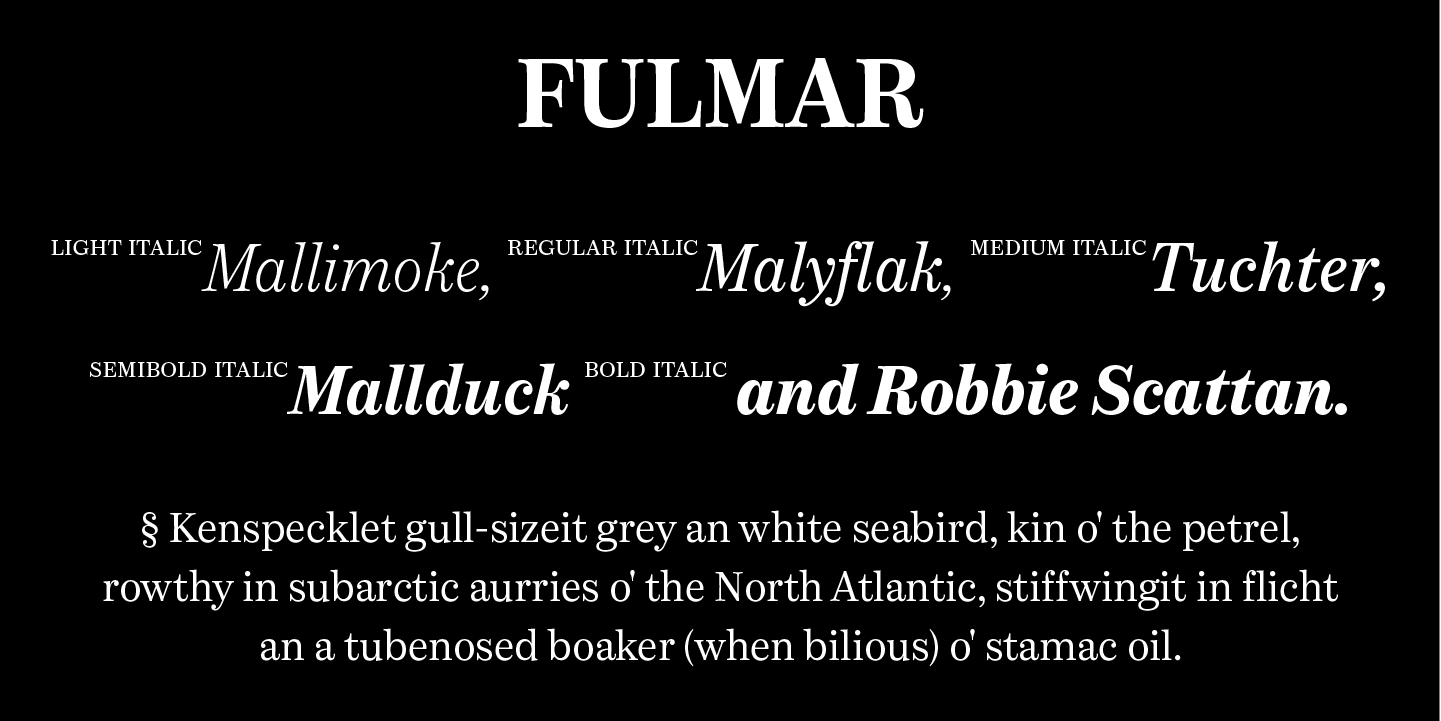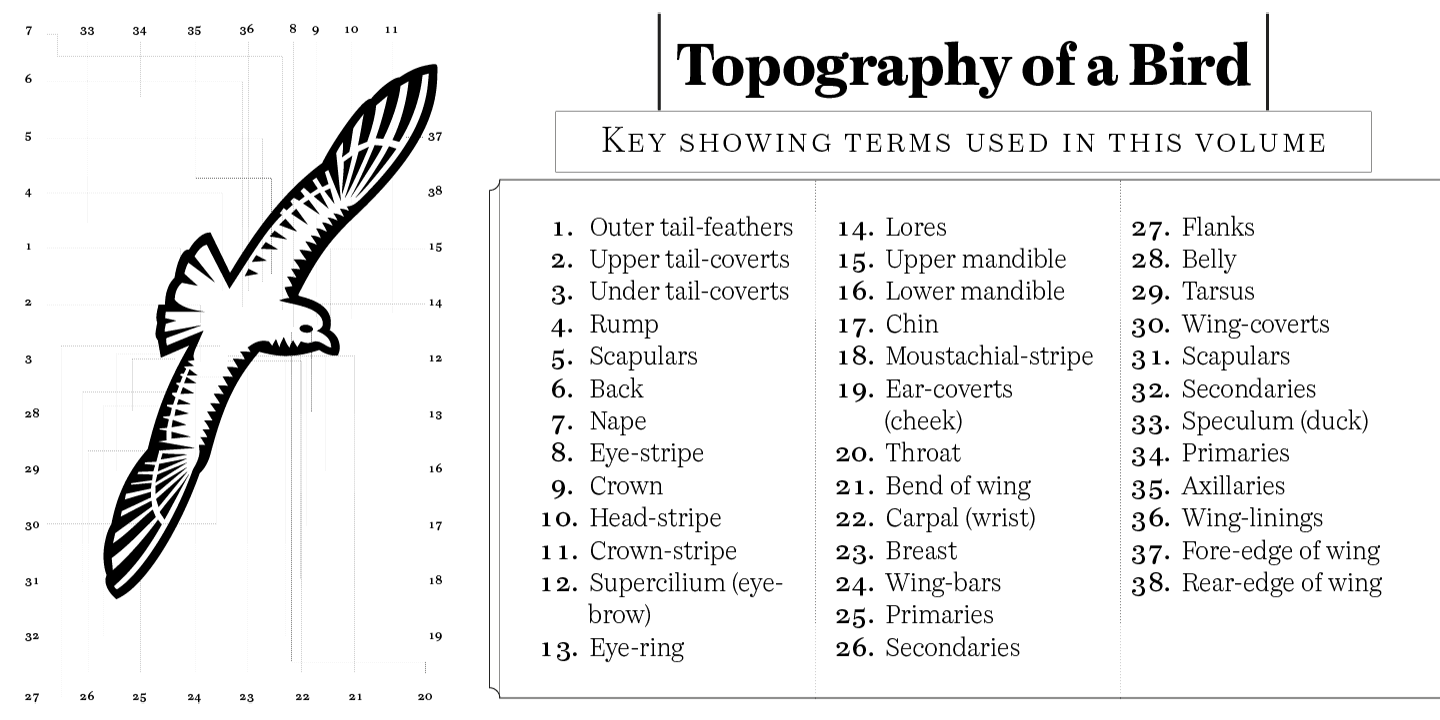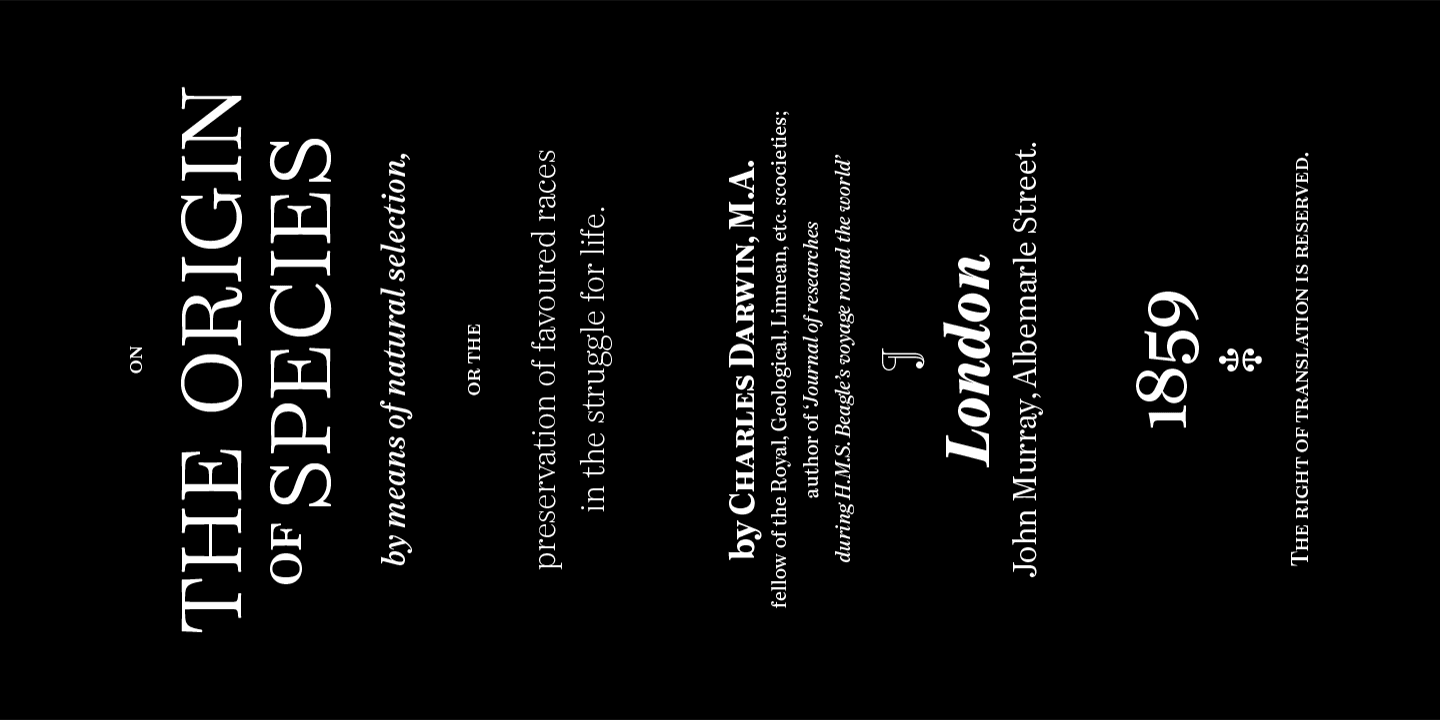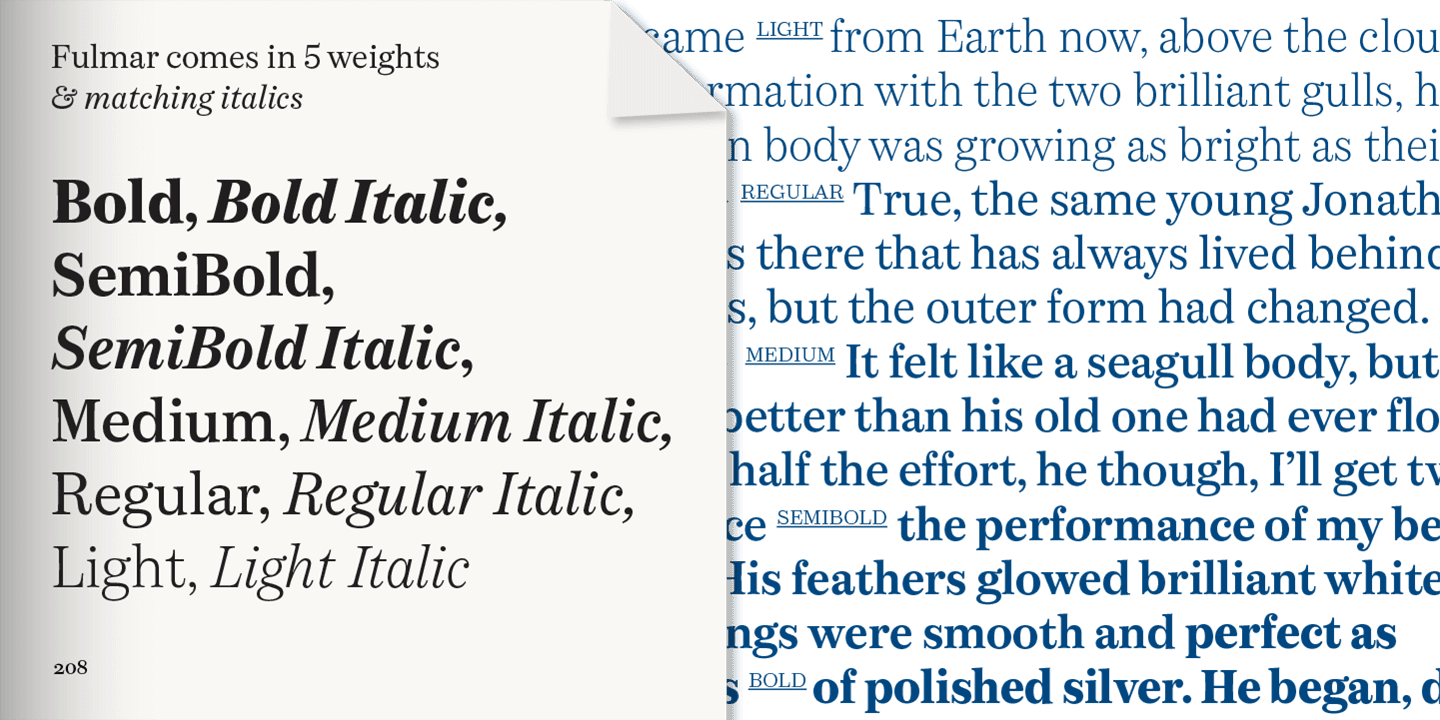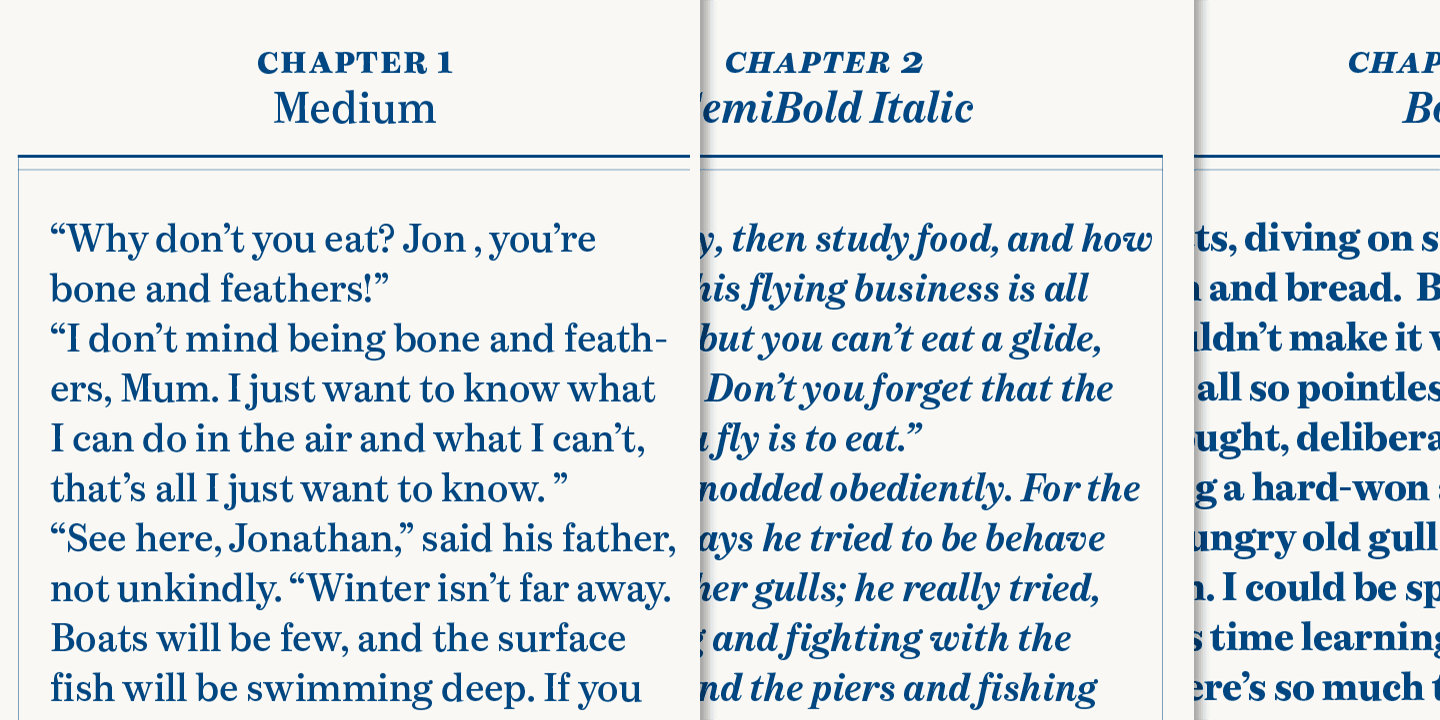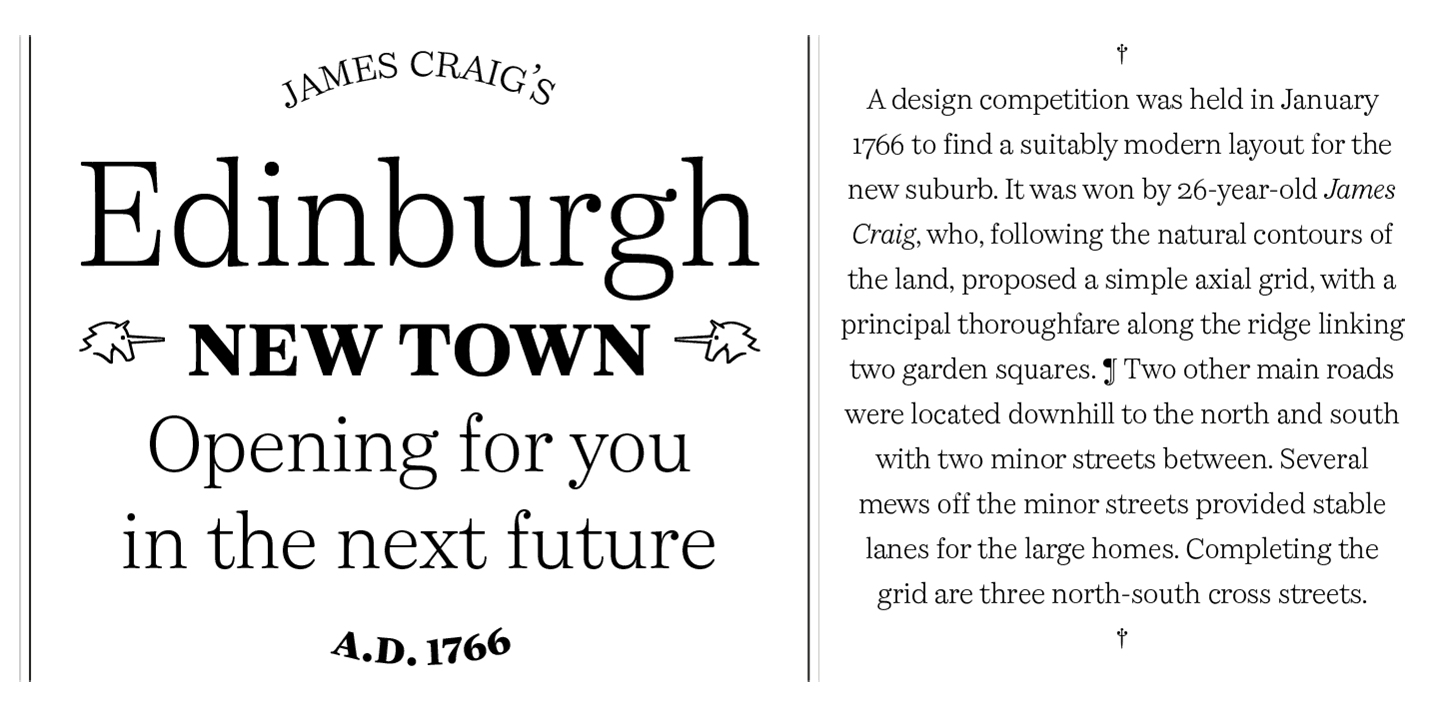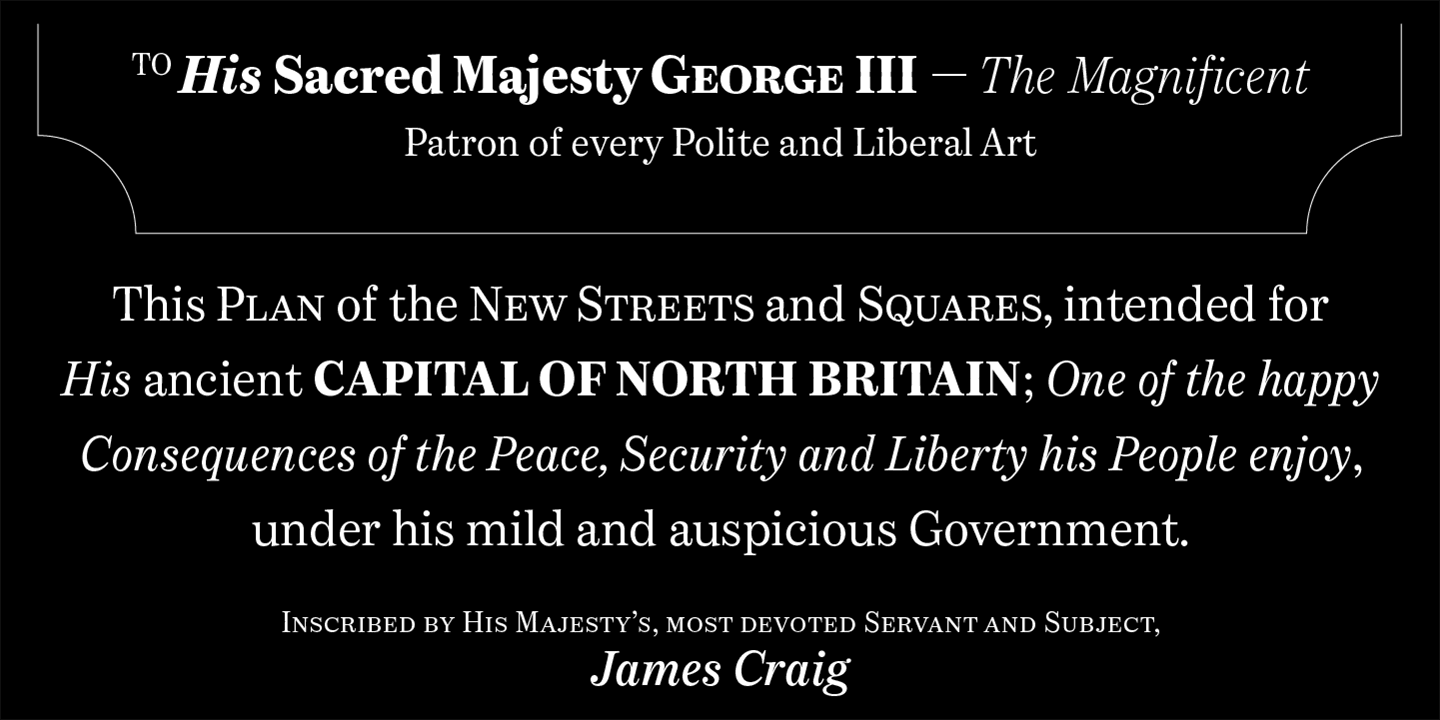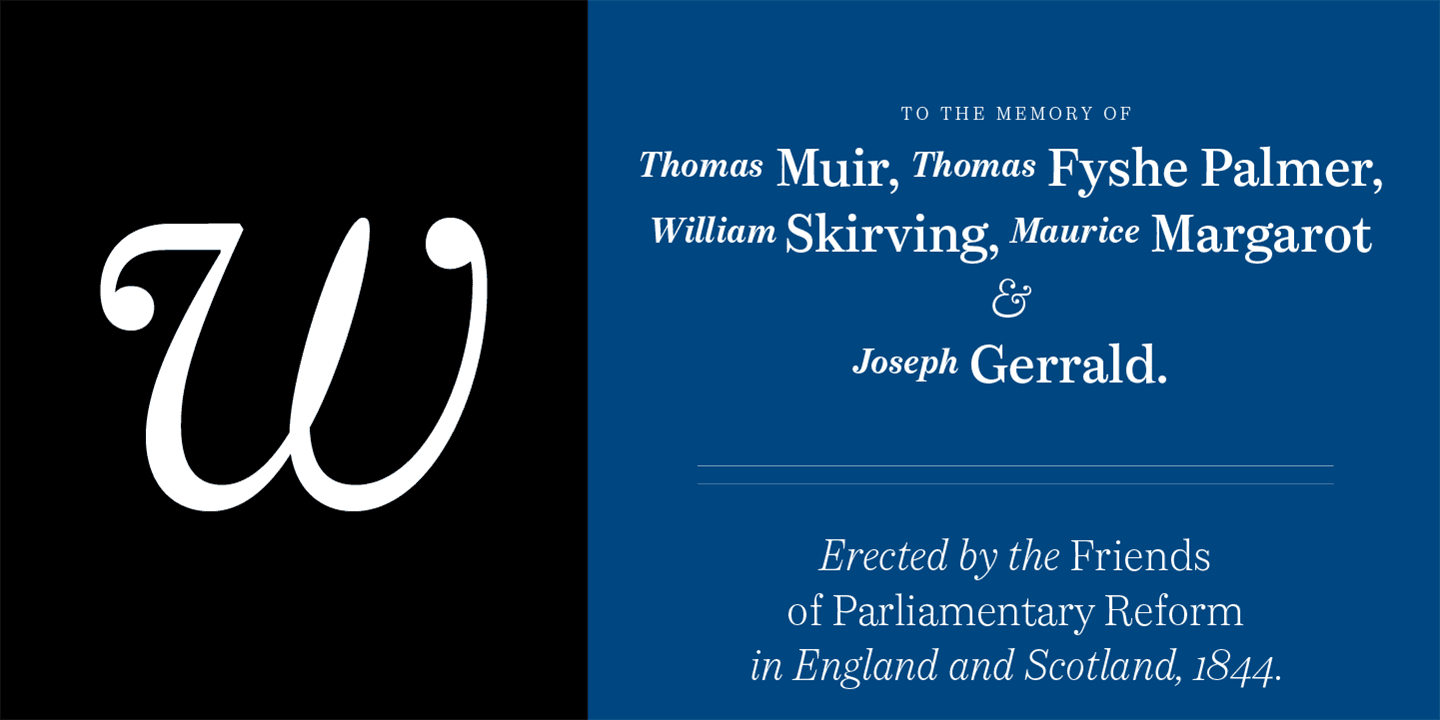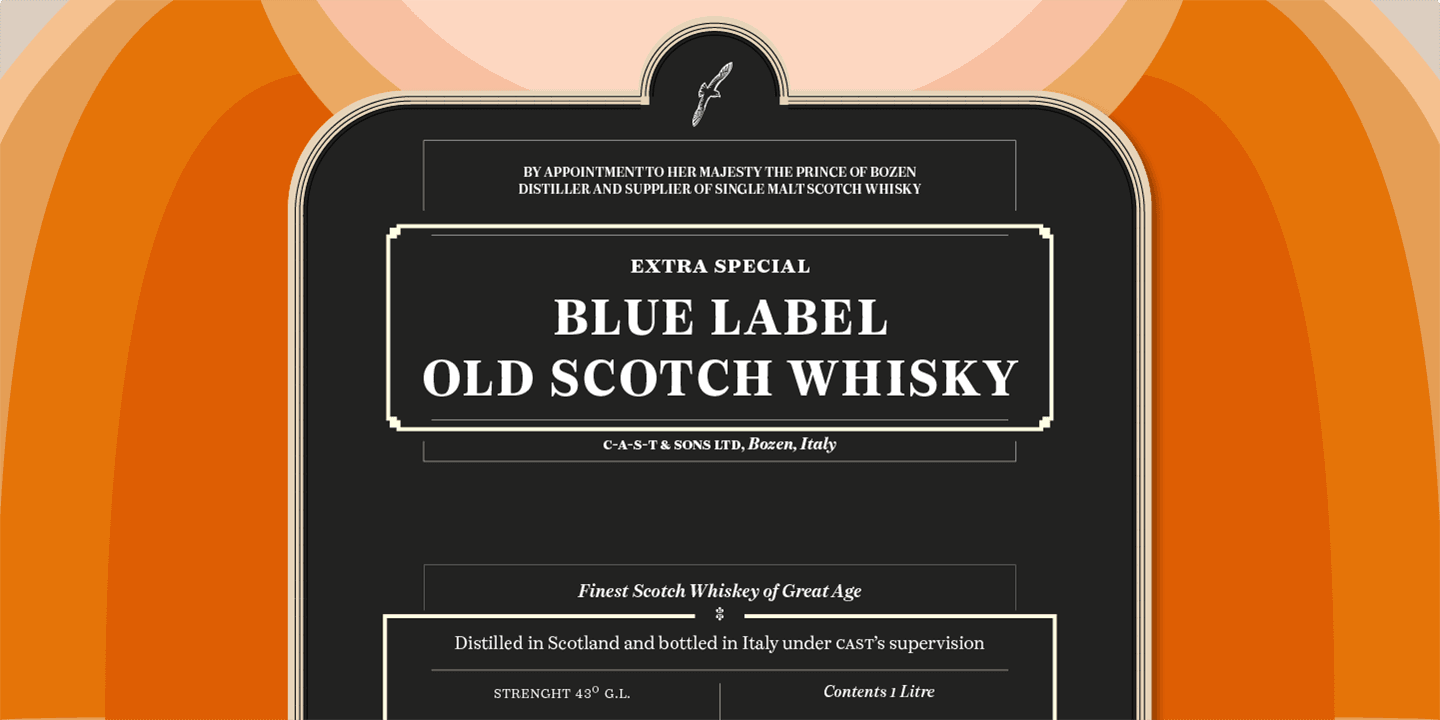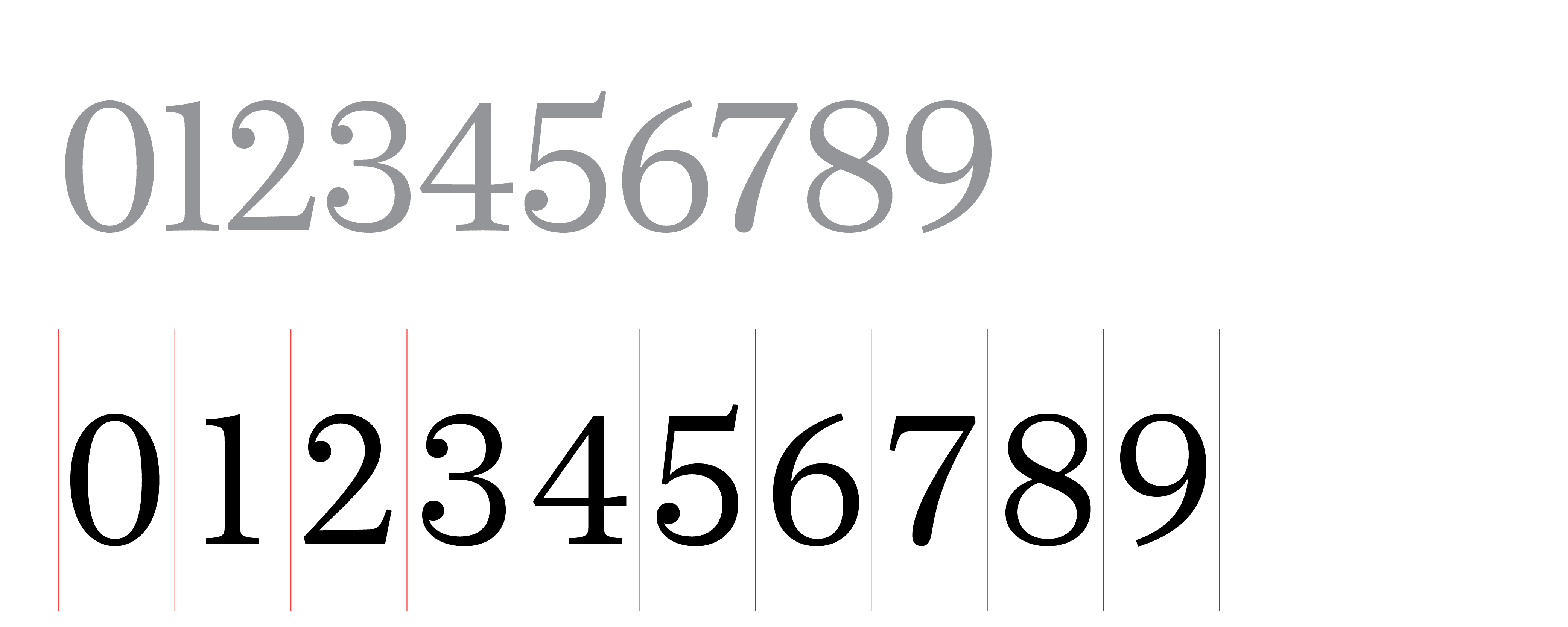
Fulmar
Named after a practical seabird, Fulmar is a modern Scotch intended for extended reading. More European than American, it draws on a range of influences from around the North Sea, from Fife’s Alexander Wilson to 17th-century French experiments in modulation and 18th-century Belgian flash, and combines them with contemporary structure and proportions. The result is crisp yet warm, steadfast yet lively, sharp yet robust, rational but humane. It can be appropriate for new translations, new histories and new understanding.
With five weights, ten styles, small caps, a clamjamfry of OpenType features and unicorn manicules, Fulmar dispenses with sprawl while retaining range and dexterity.
Designer
Leo Philp
Production years
2016-2020
Styles
Light, Light Italic, Regular, Regular Italic, Medium, Medium Italic, SemiBold, SemiBold Italic, Bold, Bold Italic
OpenType Features
Tabular figures
Oldstyle figures
Tabular Oldstyle figures
Superscript and subscript
Localised forms
Small caps
Alternative Pilcrow (SS 01)
Alternative Pilcrow (SS 02)
Alternative Pilcrow (SS 03)
Alternative Sterlin and Pilcrow (SS 04)
Alternative Pilcrow (SS 05)
Alternative Pilcrow (SS 06)